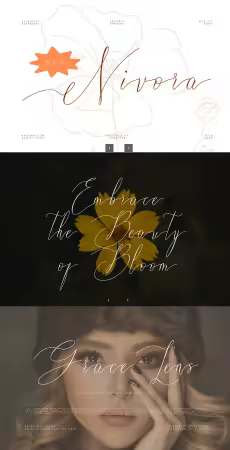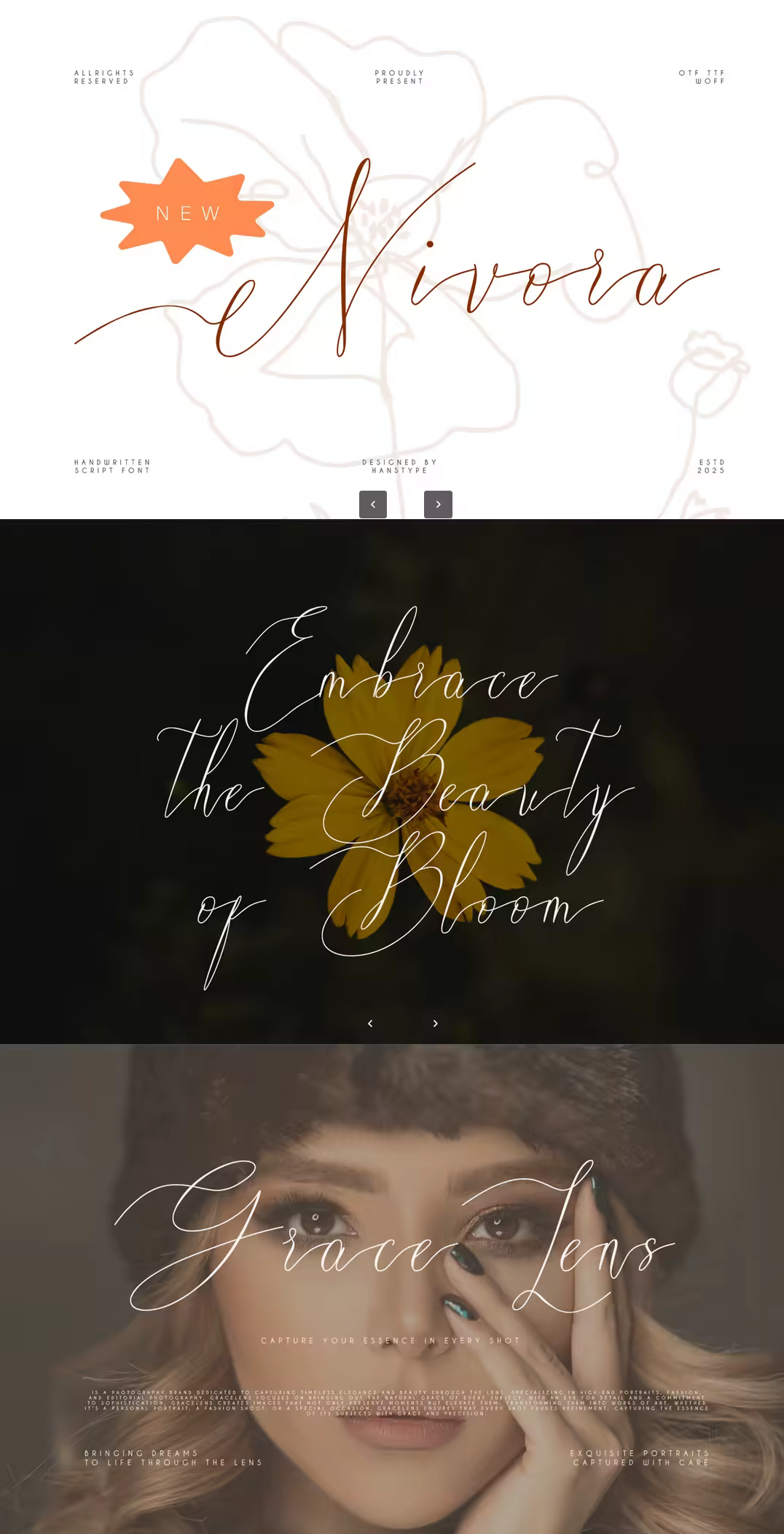
Nivora is a script handwritten font that combines elegance with a relaxed, natural flow. Its sweeping curves and fluid strokes give it an organic, hand-crafted feel, perfect for adding a personal touch to any design. The font's sophisticated yet approachable style makes it ideal for use in projects such as invitations, branding, or creative typography.